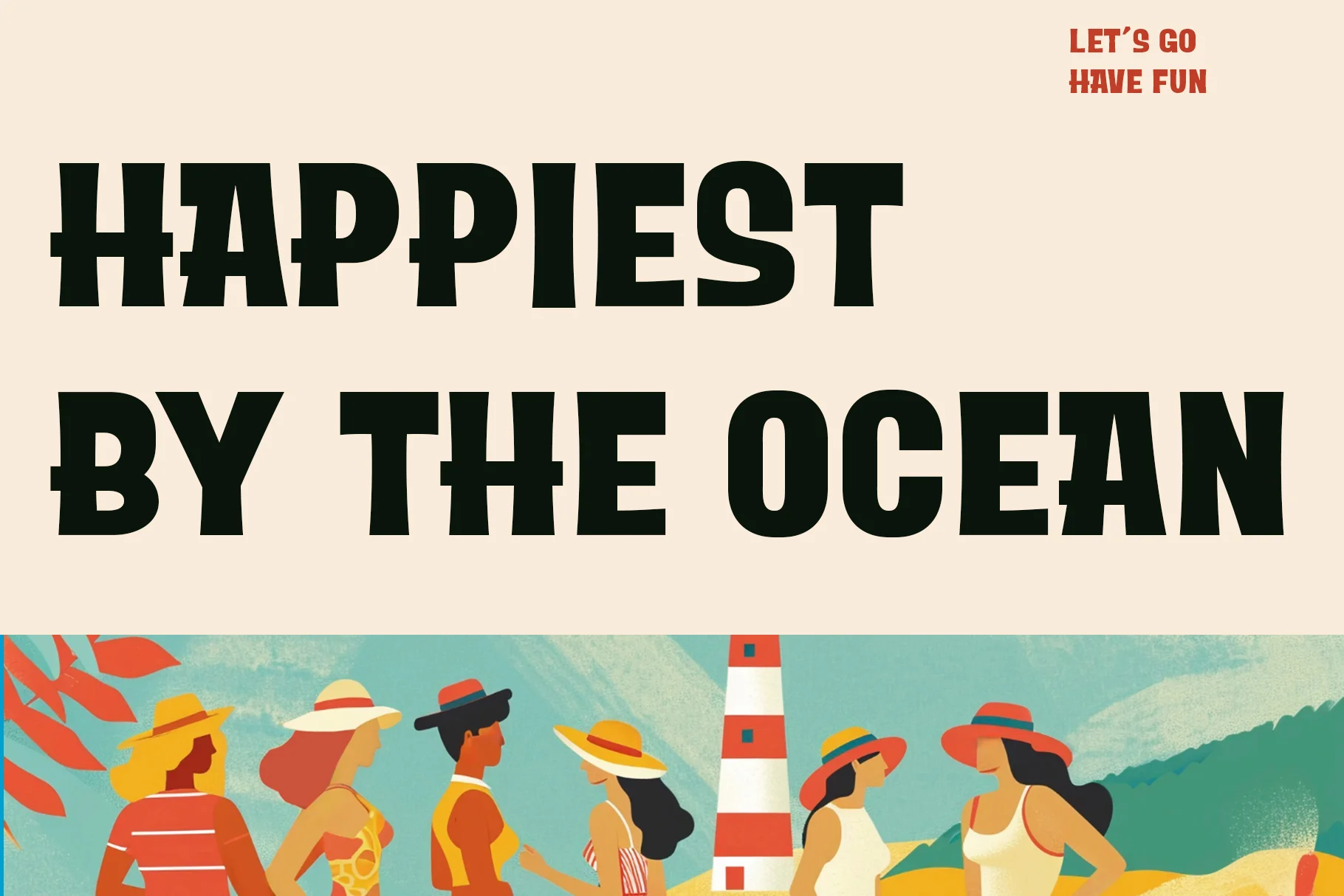
Moana Laguna
Moana Laguna is a thick, expressive display font, perfect for design projects that aim to capture the essence of summer and a laid-back island atmosphere.this font includes Alternate Ligatures. This means certain letter combinations can be specially merged or modified to create a more unique, organic, and flowing appearance.
Features:
- Numerals
- Functional Ligatures
- Alternates
- Multilingual Support